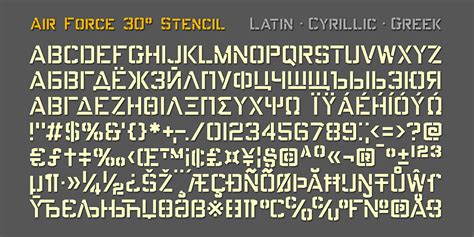
Explore the Stunning Air Force Font Collection on Dafont: Your Ultimate Resource for High-Quality Military-Themed Typography!
Air Force Font on Dafont is a bold, military-inspired typeface perfect for designs that require a strong and commanding presence.
The importance of a good font for the Air Force
Fonts play an important role in the visual representation of any organization. When it comes to the Air Force, choosing the right font is even more crucial. The Air Force font should represent its strength, power, and professionalism. One of the most popular fonts used by the Air Force is the Air Force font from dafont.com.
The Air Force font on dafont.com
The Air Force font on dafont.com is a bold, sans-serif font that represents the strength and power of the Air Force. It is a popular font choice for Air Force-related projects such as posters, flyers, and websites. The font is available for free download on dafont.com.
Uses of the Air Force font
The Air Force font can be used in various projects related to the Air Force. Here are some examples:
Posters and flyers
The Air Force font is a popular choice for posters and flyers related to the Air Force. It represents the strength and power of the Air Force and catches the attention of the viewers.
Websites
The Air Force font can also be used on websites related to the Air Force. It gives a professional and powerful look to the website and represents the values of the Air Force.
T-shirts and merchandise
The Air Force font can be used on t-shirts and other merchandise related to the Air Force. It gives a unique and powerful look to the merchandise and represents the values of the Air Force.
Conclusion
The Air Force font from dafont.com is a popular and powerful font that represents the strength and professionalism of the Air Force. It can be used in various projects related to the Air Force, such as posters, flyers, websites, t-shirts, and merchandise. Downloading and installing the font from dafont.com is a simple process, and it is available for free. Choose the Air Force font for your next Air Force-related project and represent the values and strength of the Air Force.
The History Behind Air Force Font Dafont
When it comes to military-inspired typography, one of the most recognizable fonts is undoubtedly Air Force font dafont. This font is based on the lettering used by the United States Air Force, and it has a rich history that dates back to the early days of aviation.
The original Air Force font was created in 1947, shortly after the Air Force became an independent branch of the military. It was designed to be easy to read, even at high speeds and distances, and it quickly became a staple of military communications.
Over the years, the Air Force font has gone through several iterations, with various designers tweaking and refining the original design. In 2010, a designer named Michael Adkins created a digital version of the font, which he called Air Force 1.
How Air Force Font Dafont Became Popular in Military Designs
Thanks to its clean lines and military associations, Air Force font quickly became a popular choice for military-themed designs, from recruitment posters to aircraft markings. But it wasn't until the advent of digital design tools that the font really took off.
With the rise of desktop publishing in the 1980s and 1990s, designers began using Air Force font in all sorts of designs, from logos to t-shirts to websites. And with the creation of sites like Dafont, which offers free fonts for download, Air Force font became more accessible than ever.